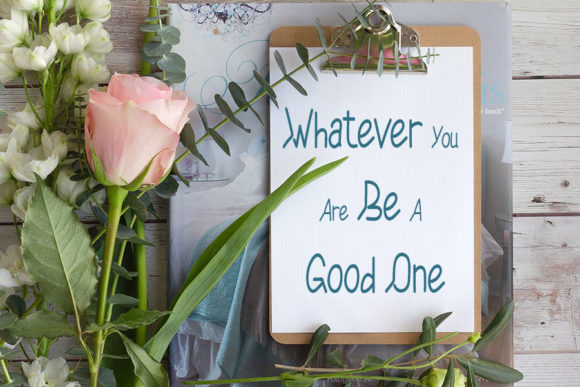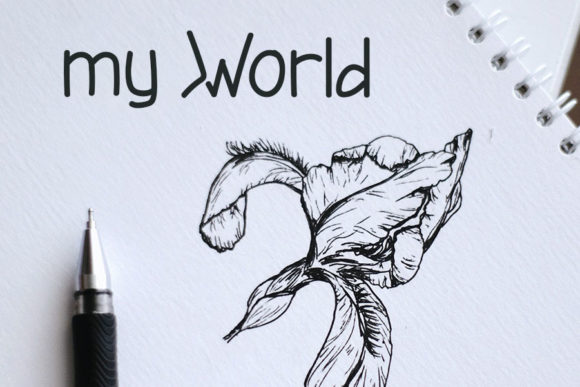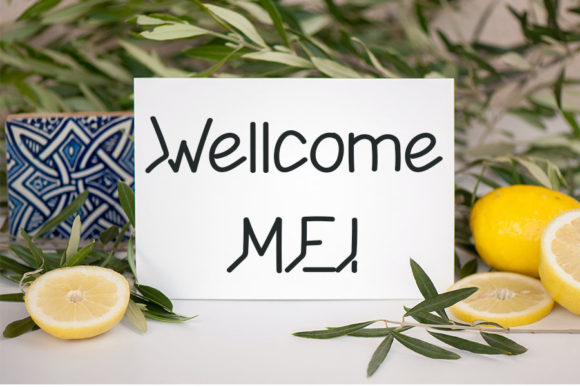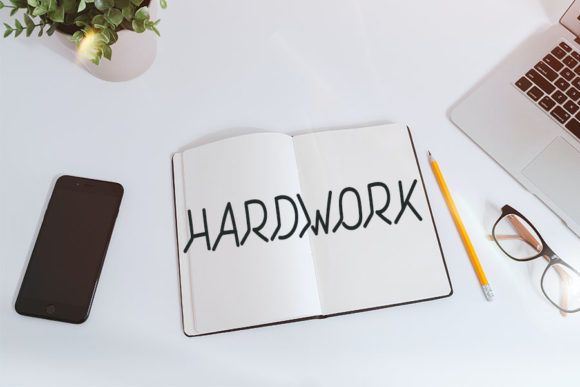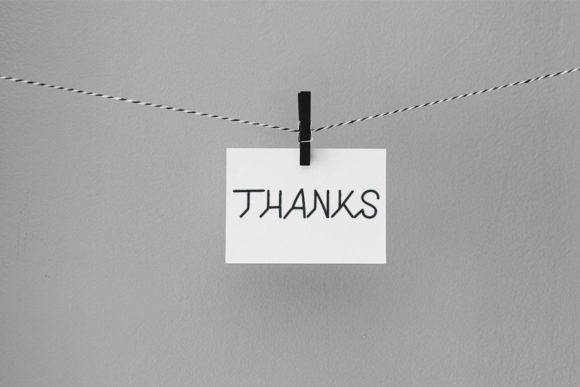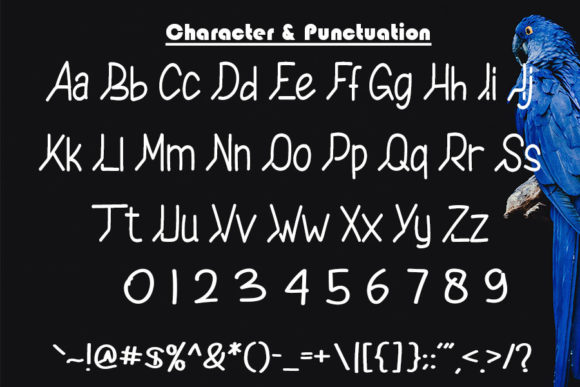
Flawless Font
About Flawless Font
Flawless is an incredibly unique script font. Masterfully designed to become a true favorite, this font has the potential to bring each of your creative ideas to the highest level!